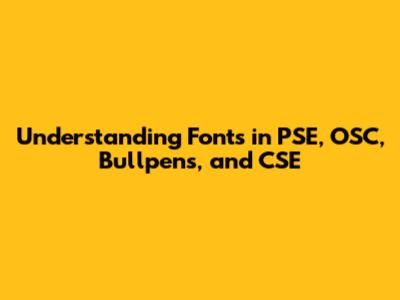
Hey guys! Ever found yourself staring at text on a screen, wondering why it looks the way it does? Or maybe you're working on a project and need to nail down the perfect font? Well, let's dive into the world of fonts, specifically how they play a role in various contexts like PSE (Primary School Education), OSC (Out-of-School Care), Bullpens (office environments), and CSE (Computer Science Education). Trust me, fonts are way more important than you might think!
The Basics of Fonts
First off, let's cover some basics. What exactly is a font? Simply put, a font is a specific typeface design. Think of it as a particular style of lettering. Fonts come in all shapes and sizes, each with its own personality and purpose. Some fonts are serious and professional, while others are playful and fun. Choosing the right font can dramatically impact how your message is received.
Fonts are generally categorized into two main types: serif and sans-serif. Serif fonts have small decorative strokes (called serifs) at the end of each character, while sans-serif fonts do not. Common serif fonts include Times New Roman and Georgia, which often give a more traditional or formal feel. On the other hand, sans-serif fonts like Arial and Helvetica tend to look cleaner and more modern. Understanding these basic differences is crucial when selecting fonts for different applications.
Moreover, fonts aren't just about aesthetics. Readability is a key factor, especially in educational settings. A font that looks cool but is hard to read defeats the whole purpose. Think about it: if students are struggling to decipher the text, they're going to have a tough time learning. So, choosing fonts that are clear, legible, and appropriate for the age group is super important. Consider things like letter spacing, character width, and overall visual clarity when making your font selections.
Furthermore, the technology used to display fonts has evolved considerably. Back in the day, fonts were often limited by the capabilities of printers and displays. But today, with high-resolution screens and advanced rendering techniques, we have a vast array of font options at our fingertips. This also means we have to be more mindful of how fonts appear on different devices and platforms. A font that looks great on your computer might not look so hot on a smartphone, so testing across various devices is always a good idea.
Fonts in Primary School Education (PSE)
When it comes to Primary School Education (PSE), the choice of font can significantly impact a child's learning experience. Think about it – young children are just learning to read, so clarity and simplicity are key. You want fonts that are easy to recognize and differentiate, helping them build their reading skills.
So, what fonts work best in PSE? Generally, sans-serif fonts like Arial, Calibri, and Comic Sans MS (yes, really!) are often recommended. These fonts tend to have simpler letterforms, making them easier for young eyes to process. The goal is to minimize any visual clutter that could distract or confuse young readers. Keep in mind that while Comic Sans MS gets a lot of flak in the design world, its simple and playful nature can actually be beneficial for early learners. The key is to use it appropriately and avoid overuse.
Besides the typeface itself, font size and spacing are also critical. Use a large enough font size (typically 12-14 points) to ensure readability, and increase the line spacing (leading) to prevent letters from crowding together. This helps children track the text more easily and reduces eye strain. Highlighting keywords or important phrases in bold can also be a useful strategy, but avoid using italics or ALL CAPS, as these can be harder for young children to read.
Also, consider the cultural context of your students. Some letterforms may be unfamiliar or confusing to children from different linguistic backgrounds. If you're working with a diverse student population, it's a good idea to consult with educators or literacy specialists to ensure that your font choices are appropriate and inclusive. The ultimate goal is to create a learning environment that is accessible and engaging for all students, and font selection plays a significant role in achieving that.
In summary, when selecting fonts for primary school education, prioritize clarity, simplicity, and age-appropriateness. Sans-serif fonts, larger font sizes, and generous spacing are generally good choices. And don't be afraid to experiment and get feedback from teachers and students to find what works best for your specific context. After all, the right font can make a big difference in a child's reading journey.
Fonts in Out-of-School Care (OSC)
Moving on to Out-of-School Care (OSC) environments, fonts still play an important role, though the considerations may be slightly different than in a formal classroom setting. OSC programs often involve a mix of educational activities, recreational games, and creative projects, so the font choices need to be versatile and engaging.
In OSC, you might want to use a wider variety of fonts to cater to different activities. For example, for educational materials like worksheets or activity guides, you'll still want to prioritize readability with clear and simple fonts like Arial or Calibri. But for posters, banners, or other promotional materials, you might have more leeway to use more decorative or playful fonts to capture children's attention. Just remember to maintain a balance between aesthetics and legibility.
When selecting fonts for OSC, think about the overall tone and message you want to convey. If you're promoting a fun and active program, you might choose a bold and energetic font. If you're emphasizing the educational aspects of the program, a more serious and professional font might be more appropriate. The key is to choose fonts that align with the values and goals of your OSC program.
Font size and color are also important considerations in OSC. Since OSC environments often involve a mix of indoor and outdoor activities, you'll want to make sure that your fonts are visible and legible in various lighting conditions. Use a large enough font size for posters and banners, and choose colors that contrast well with the background. Avoid using colors that are too similar, as this can make the text difficult to read. You can also use bold or italic text to highlight key information, but be careful not to overdo it.
Furthermore, consider the age range of the children in your OSC program. Older children might appreciate more sophisticated font choices, while younger children might prefer simpler and more playful fonts. It's always a good idea to involve the children in the font selection process, if possible. This can help them feel more engaged and invested in the program.
Ultimately, the goal of font selection in OSC is to create a welcoming and engaging environment for children. Choose fonts that are clear, legible, and appropriate for the activity at hand. And don't be afraid to get creative and experiment with different font combinations to find what works best for your specific OSC program.
Fonts in Bullpens (Office Environments)
Now, let's shift gears and talk about fonts in Bullpens (office environments). In this setting, the primary concern is usually professionalism and readability. You want fonts that convey a sense of competence and trustworthiness, while also being easy on the eyes for extended periods of reading.
In most office environments, sans-serif fonts like Arial, Helvetica, and Calibri are the go-to choices. These fonts tend to look clean and modern, and they're highly legible on screens. Serif fonts like Times New Roman and Georgia are also acceptable, particularly for formal documents and reports. However, it's generally best to avoid overly decorative or stylized fonts, as these can come across as unprofessional.
Consistency is key when it comes to fonts in the workplace. Establish a clear font policy for all documents, emails, and presentations to ensure a unified and professional look. This not only enhances the company's brand image but also makes it easier for employees to collaborate and share information. Stick to a limited number of fonts (usually two or three) to avoid visual clutter and maintain a consistent style.
Font size and spacing are also crucial in office environments. Use a font size that is comfortable to read (typically 11-12 points), and adjust the line spacing (leading) to prevent the text from feeling cramped. Also, pay attention to the kerning (the space between individual letters) to ensure that the text looks balanced and harmonious. Small adjustments to kerning can significantly improve the readability of your documents.
Furthermore, consider the accessibility of your font choices. Some fonts are easier to read for people with visual impairments or dyslexia. If you're creating documents that will be widely distributed, it's a good idea to choose fonts that are known for their accessibility. You can also use formatting techniques like bold text and bullet points to highlight key information and make your documents easier to scan.
In short, when selecting fonts for office environments, prioritize professionalism, readability, and consistency. Sans-serif fonts are generally a safe bet, but serif fonts can also work well in certain contexts. Establish a clear font policy, pay attention to font size and spacing, and consider the accessibility of your font choices. By following these guidelines, you can ensure that your documents convey the right message and make a positive impression.
Fonts in Computer Science Education (CSE)
Lastly, let's explore the role of fonts in Computer Science Education (CSE). In this field, fonts have a unique significance because they're not just about aesthetics – they're also about functionality. When writing code, the choice of font can directly impact readability and reduce the risk of errors.
In CSE, monospace fonts are the preferred choice for coding. Monospace fonts are fonts in which each character occupies the same amount of horizontal space. This makes it easier to align code and visually distinguish between different elements. Common monospace fonts used in coding include Courier New, Consolas, and Menlo.
The reason monospace fonts are so popular in coding is that they make it easier to spot errors. When all characters have the same width, it's much easier to see misalignments or inconsistencies in your code. This can be especially helpful when debugging complex programs. Additionally, monospace fonts often have distinct shapes for characters that are easily confused, such as the number 1 and the lowercase letter l, or the number 0 and the uppercase letter O.
Besides the typeface itself, font size and color are also important considerations in CSE. Use a font size that is comfortable to read for extended periods of coding. You might also want to adjust the color scheme of your code editor to highlight different elements, such as keywords, variables, and comments. This can help you quickly scan your code and understand its structure.
Moreover, consider the platform you're using for coding. Different code editors and integrated development environments (IDEs) may have different font options and settings. Experiment with different fonts and color schemes to find what works best for your specific setup. You can also customize the font settings to your liking, such as adjusting the line height or character spacing.
In conclusion, when selecting fonts for computer science education, prioritize monospace fonts for coding. Choose a font that is easy to read, and adjust the font size and color scheme to your preferences. Experiment with different font settings to find what works best for your coding environment. By making the right font choices, you can improve your coding efficiency and reduce the risk of errors.
So, there you have it! Fonts aren't just a matter of aesthetics; they play a crucial role in various contexts, from primary school education to computer science. Understanding the basics of fonts and how they impact readability and functionality can help you make informed decisions and create more effective communications. Keep these tips in mind, and you'll be well on your way to becoming a font master!